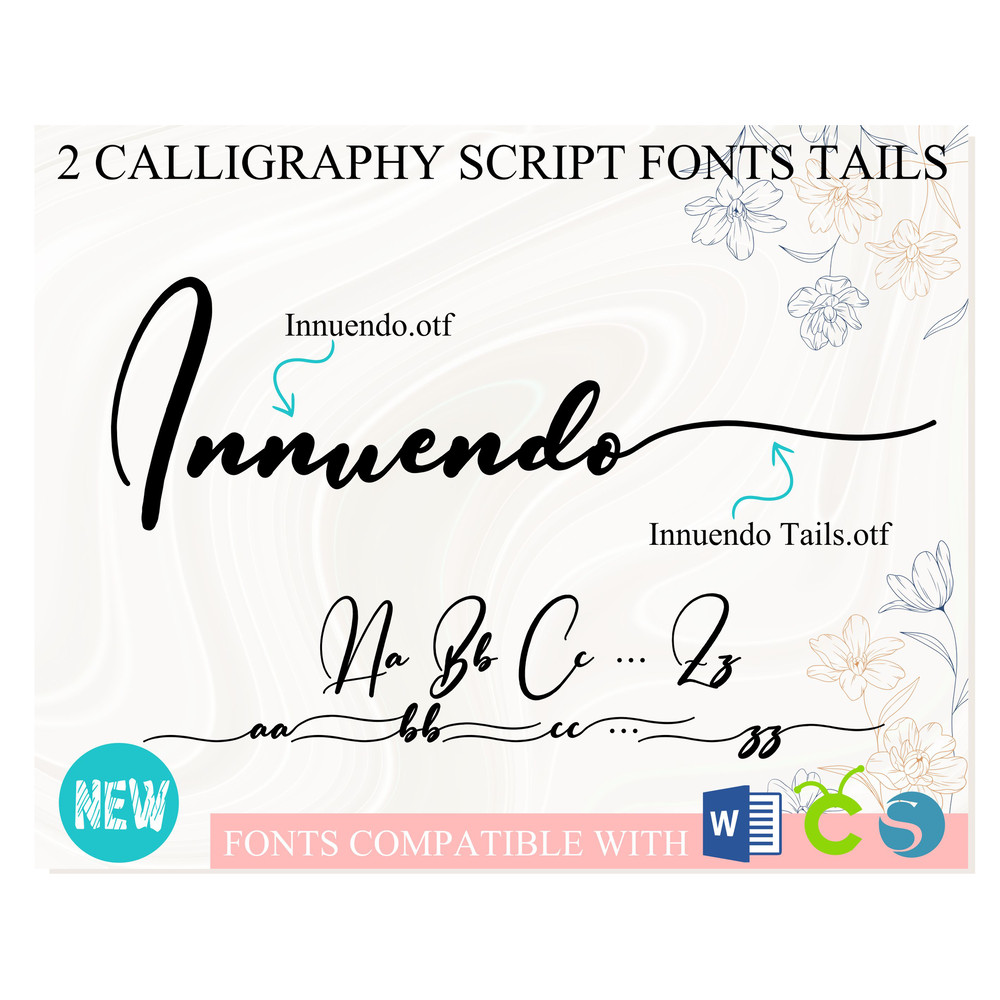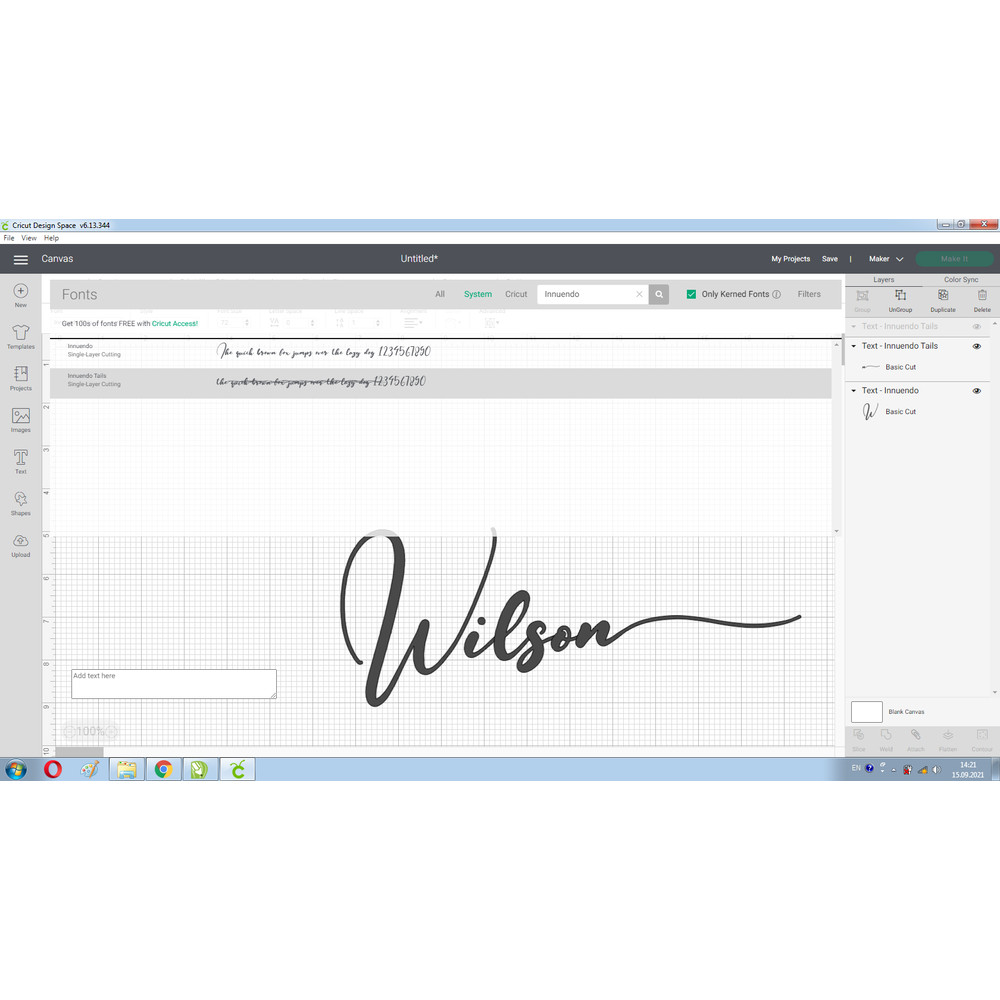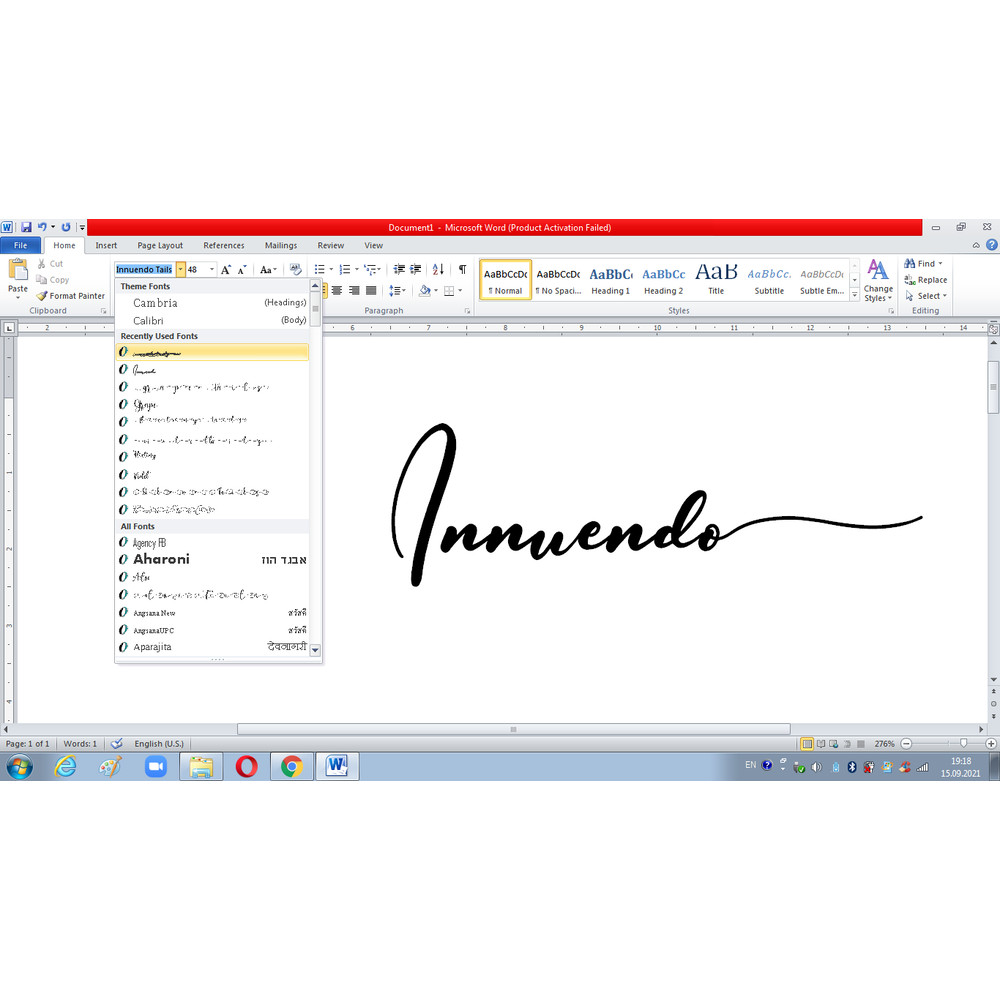
Innuendo Font with Tails | Romantic Fonts, Script Fonts, Beautiful Fonts, Cursive Font, Handwritten Font, Wedding font
Just install the fonts on your computer, combine two fonts in one word, create beautiful lettering!